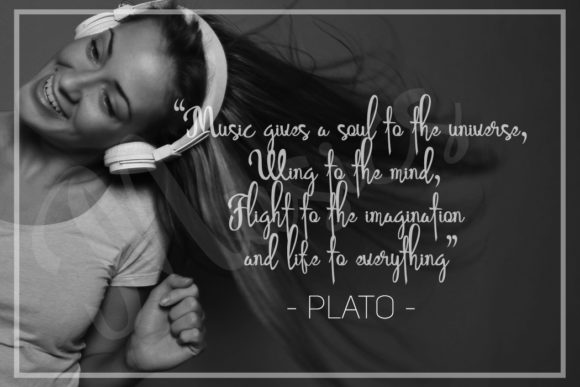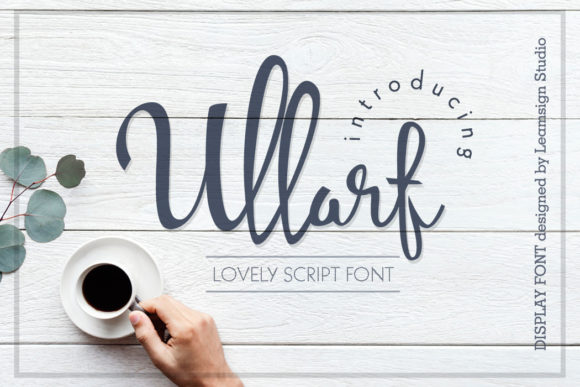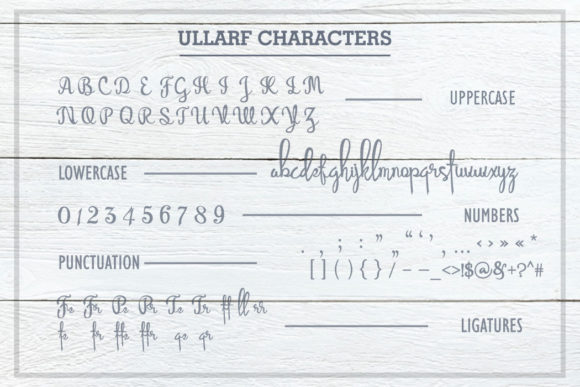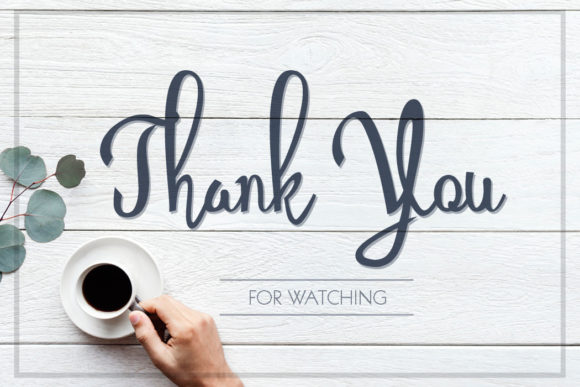
Freebie Wednesday: Ullarf Font
Ullarf Font is a lovely script font and it’s free at Creative Fabrica for another 5 days so you better hurry. Don’t miss out!